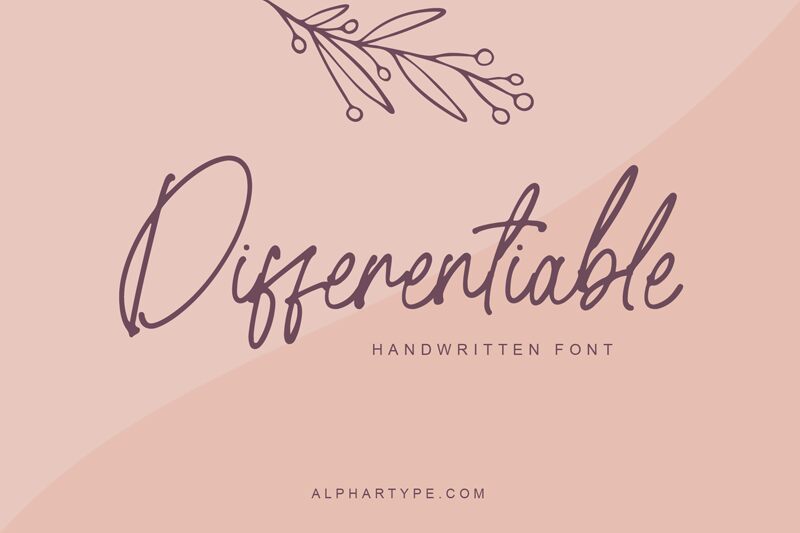
Differentiable is a narrow, thin handwritten font designed by Agung Rohmat. It's perfect for projects such as cards, journals, and posters that require a personal touch. It's also great for headlines and short messages that need to stand out.
Differentiable